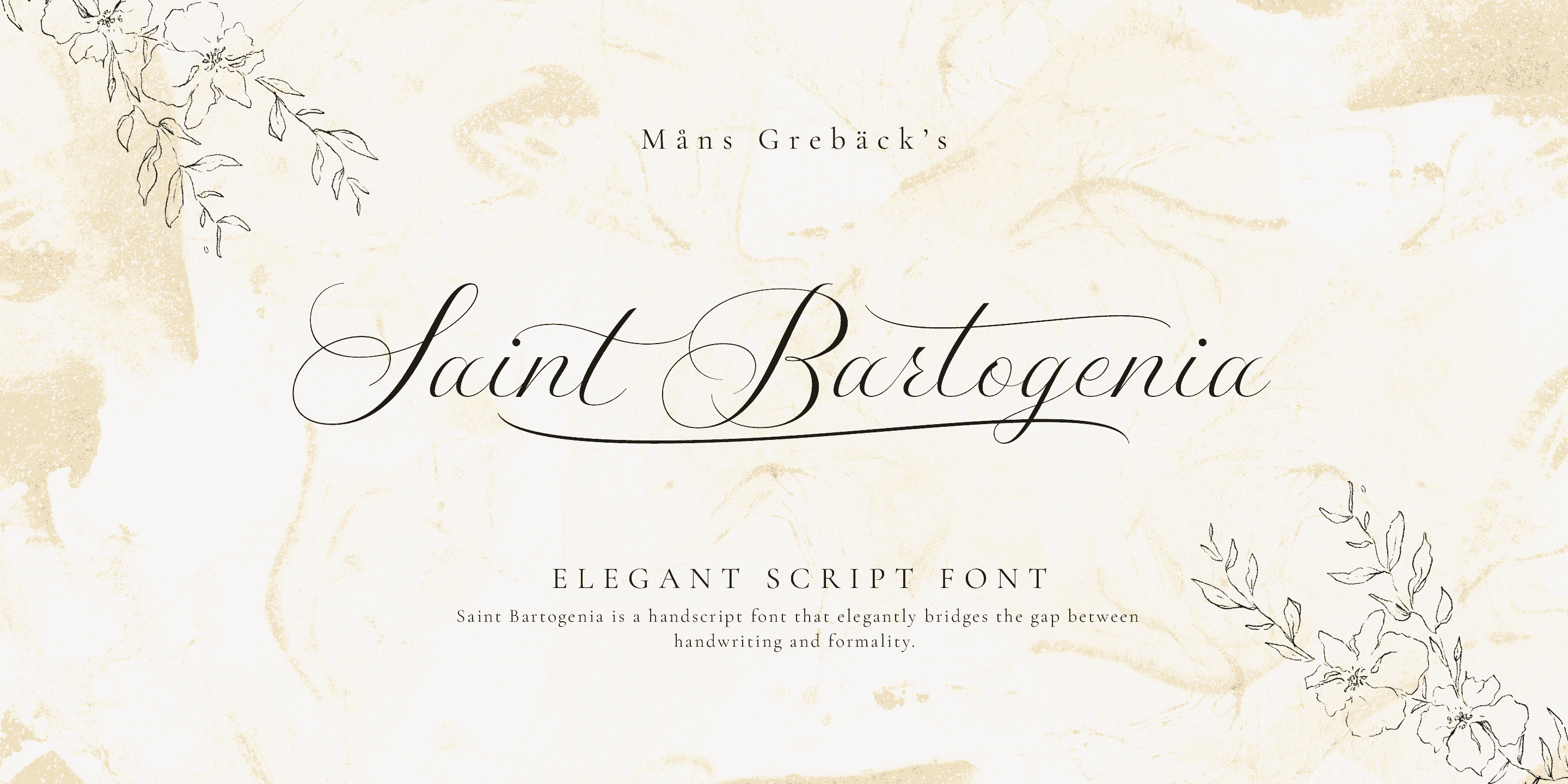
Saint Bartogenia Font excels in religious publications, ecclesiastical documents, cathedral signage, sacred text presentations, spiritual book covers, monastery manuscripts, church bulletins, pilgrimage materials, biblical studies, and faith-based branding where reverent, dignified typography reflects sacred traditions and spiritual devotion.
What makes Saint Bartogenia Font exciting is its masterful blend of medieval calligraphic traditions with contemporary readability that captures the solemnity and beauty of sacred text presentation. This font features carefully crafted letterforms with subtle decorative elements, graceful proportions, and spiritual elegance that evoke the timeless tradition of illuminated manuscripts. The reverent character and devotional aesthetic make it ideal for applications requiring dignity, respect, and connection to religious heritage.
Saint Bartogenia Font family includes Regular, Medium, and Bold weights, each maintaining the font's characteristic sacred elegance while offering different levels of visual presence for liturgical hierarchies. The family also features ornamental capitals, decorative initials, and ecclesiastical symbols that enhance religious typography. Each variant preserves the font's devotional character while providing flexibility for complex spiritual document structures.
The Saint Bartogenia Font Free Download provides access to typography that honors religious traditions while serving contemporary faith communities. This font's sacred styling makes it perfect for religious education materials, spiritual publications, and ecclesiastical communications where reverence and authenticity are paramount. Its versatility extends to digital worship platforms, religious websites, and modern faith-based design applications requiring traditional spiritual aesthetics.
Saint Bartogenia Font supports comprehensive character coverage including liturgical symbols, religious punctuation, and multilingual support for international religious texts. The font's carefully calibrated metrics ensure proper spacing for sacred text presentation while maintaining the devotional character that defines its spiritual personality. Its scalability works effectively from prayer book text to large sanctuary displays.
The font's sacred presence makes it particularly effective for worship materials, religious ceremonies, and spiritual communications where reverence and tradition are essential for meaningful worship experiences. Whether designing prayer books, religious educational materials, or faith community communications, Saint Bartogenia Font delivers authentic spiritual typography that honors sacred traditions while serving contemporary religious communities effectively.